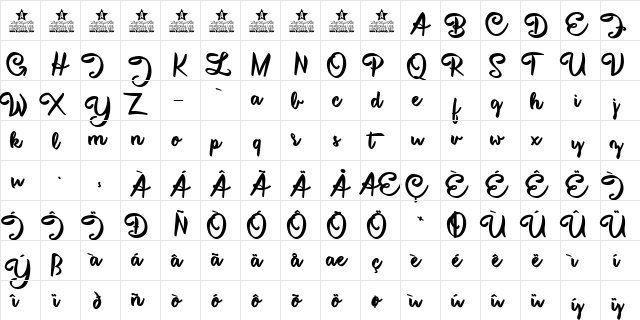
Superstar Personal Use Regular
| Foundry | Billy Argel |
| Designer | Billy Argel |
Design Context for Superstar Personal Use Typeface
Superstar Personal Use is a composed and adaptable typeface that performs quietly and consistently across a wide range of design contexts.
Pro Tip: Use Superstar Personal Use in both headline and body roles to test its range before committing to a single application.